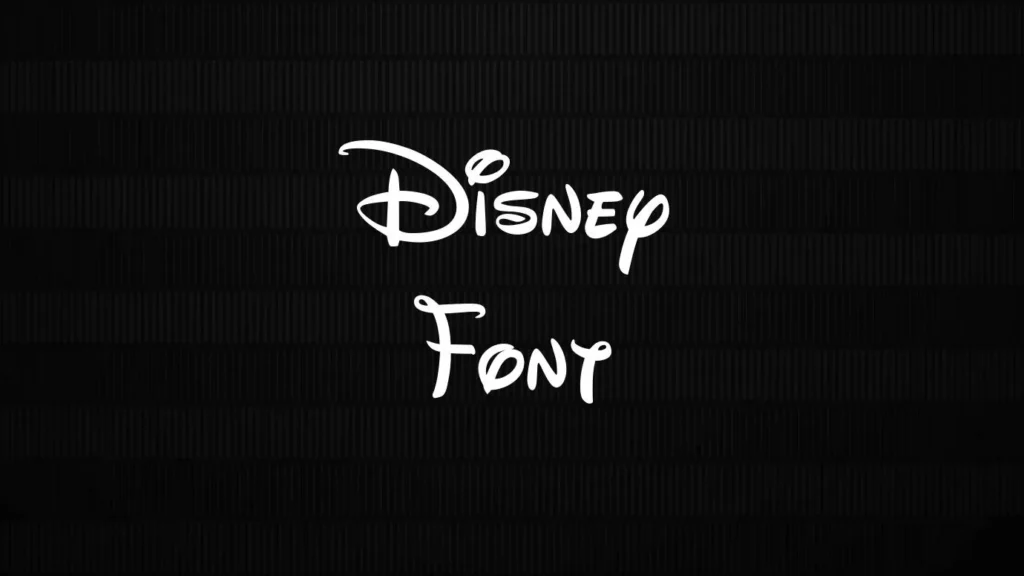
This typeface is based on the handwriting of Walt Disney himself. This gives the font a unique, playful look that is perfect for any Disney-themed project. The
If you're a fan of Disney, then you might want to consider using this typeface for your next project. It is a unique font that can be used for a variety of purposes. Whether you're looking to create a website or design a poster, the Disney Font can help you add a touch of magic to your work.
This typeface is based on the handwriting of Walt Disney himself. This gives the font a unique, playful look that is perfect for any Disney-themed project. The font includes a full character set, as well as support for multiple languages. You can also generate this typeface from the online font generator tool.
This stunning typeface falls under the category of the brush typeface.